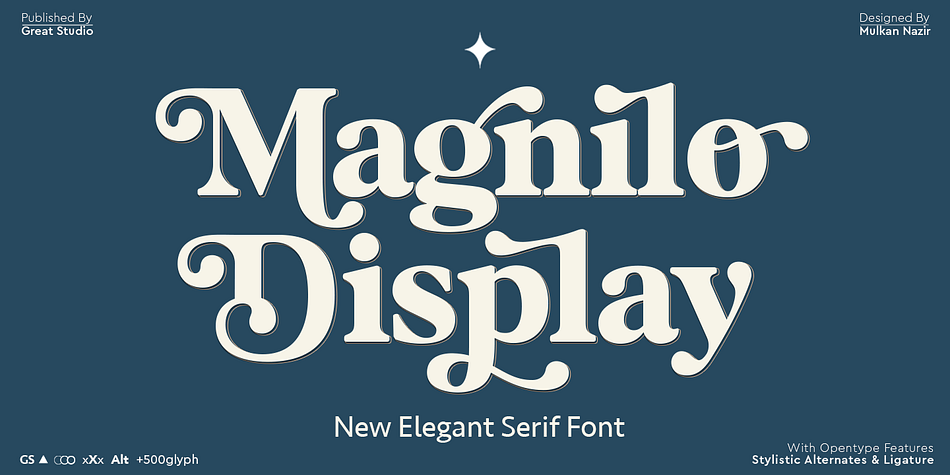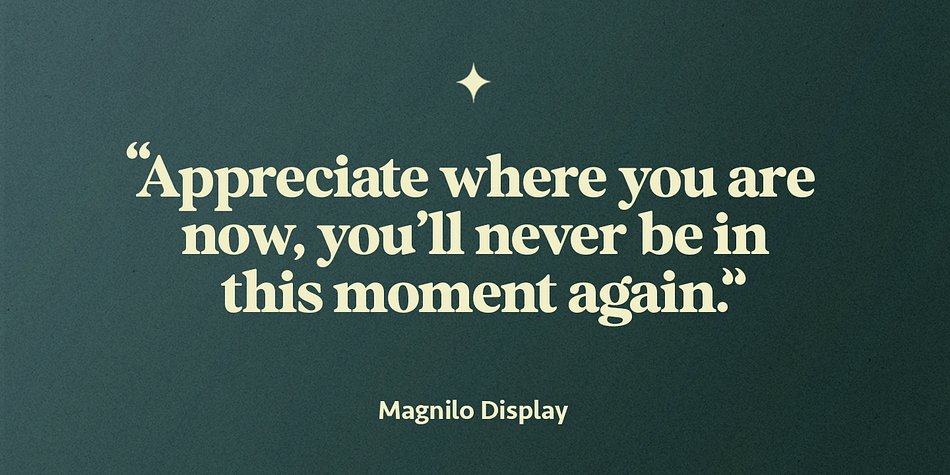
Magnilo Display
Designed by Mulkan Nazir, Magnilo Display is a serif font family published by Great Studio.
Magnilo Display is a modern vintage serif font packaged in a modern and classy style, complete with access to your OpenType features to access a large selection of alternates letters and ligatures, the choice of letters you like from variations of uppercase and lowercase letters to get a display luxurious and elegant.
Features
All Uppercase and Lowercase
Number & Symbol
Alternates and Ligatures